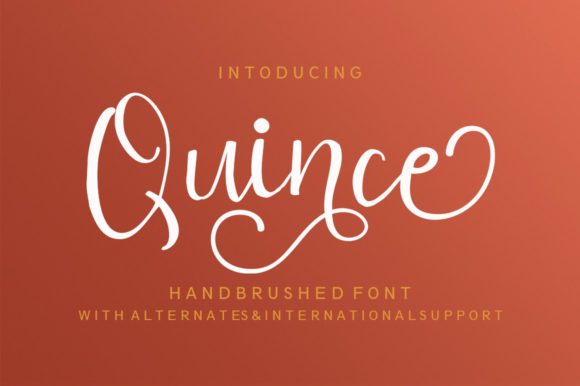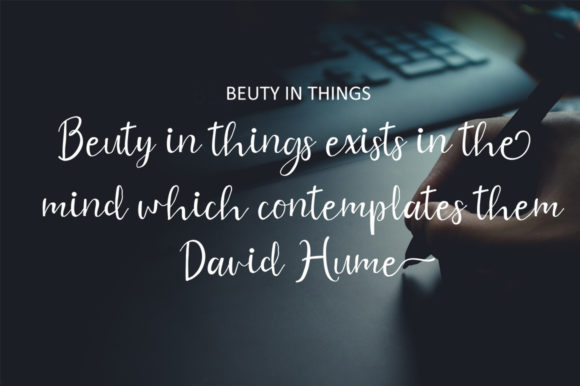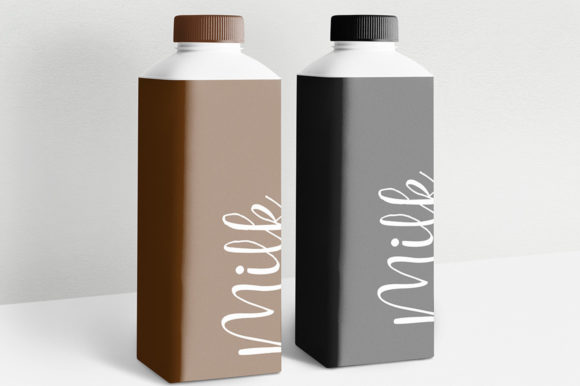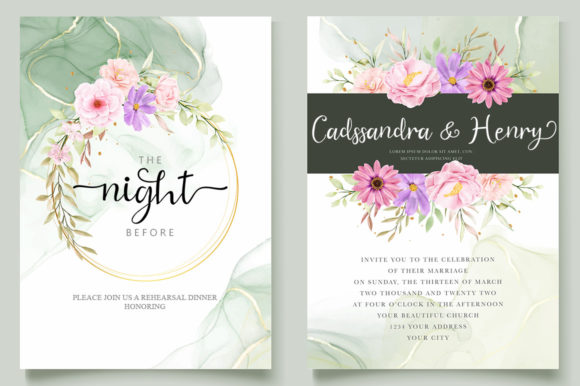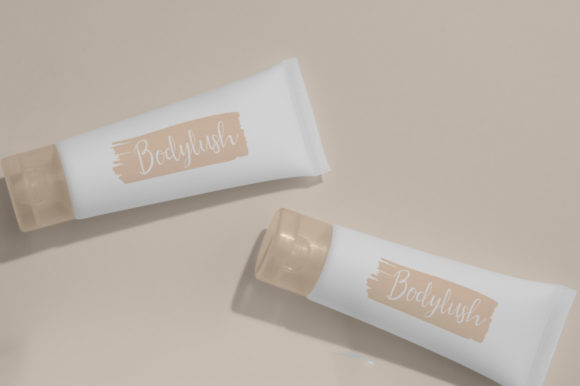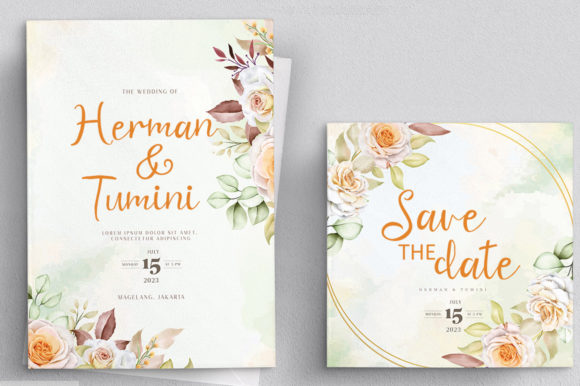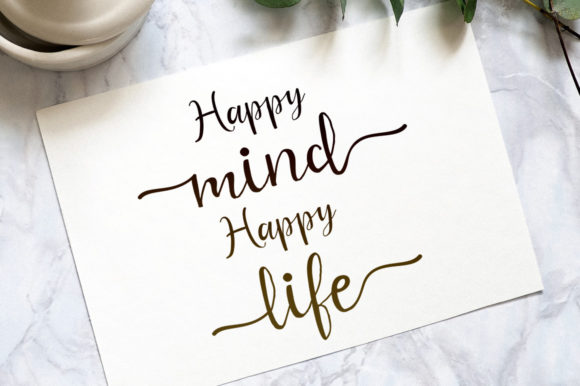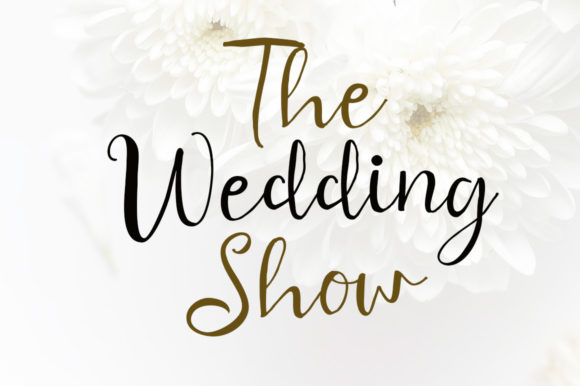
Quince Script Font
About Quince Script Font
Quince is a new modern script font with an irregular baseline. Trendy and feminine, Quince looks lovely on wedding invitations, thank you cards, quotes, greeting cards, logos, business cards, and more. Perfect for using in ink or watercolor. Including initial and terminal letters, alternates, and multiple language support.